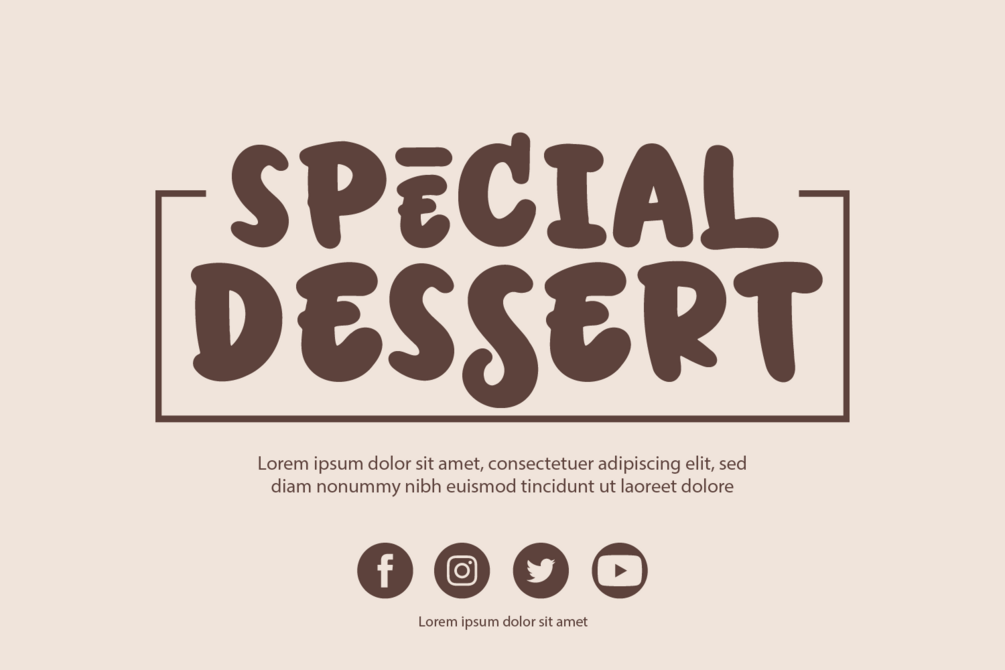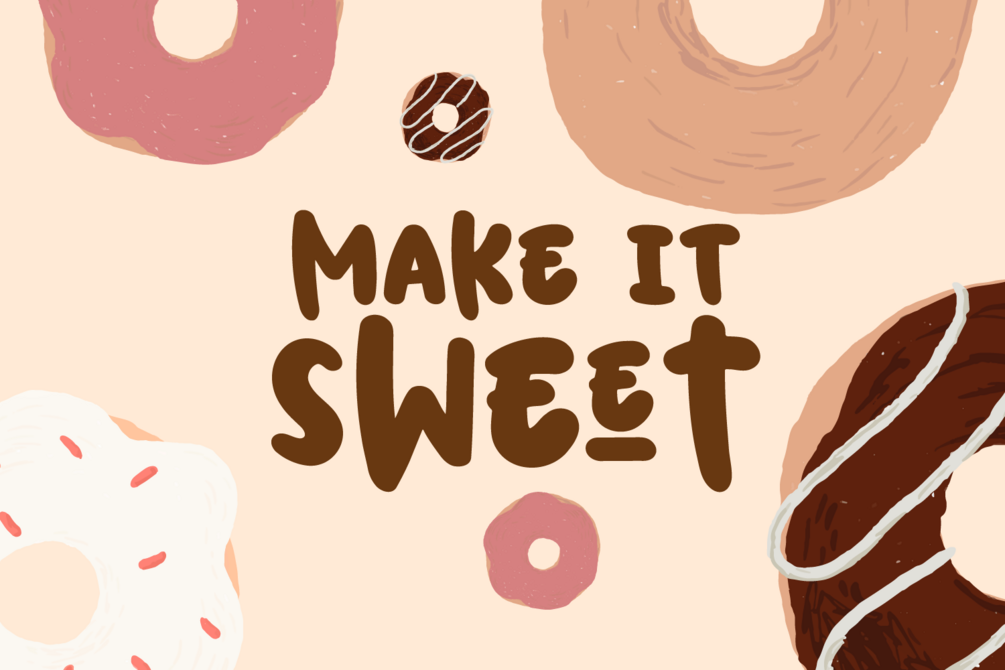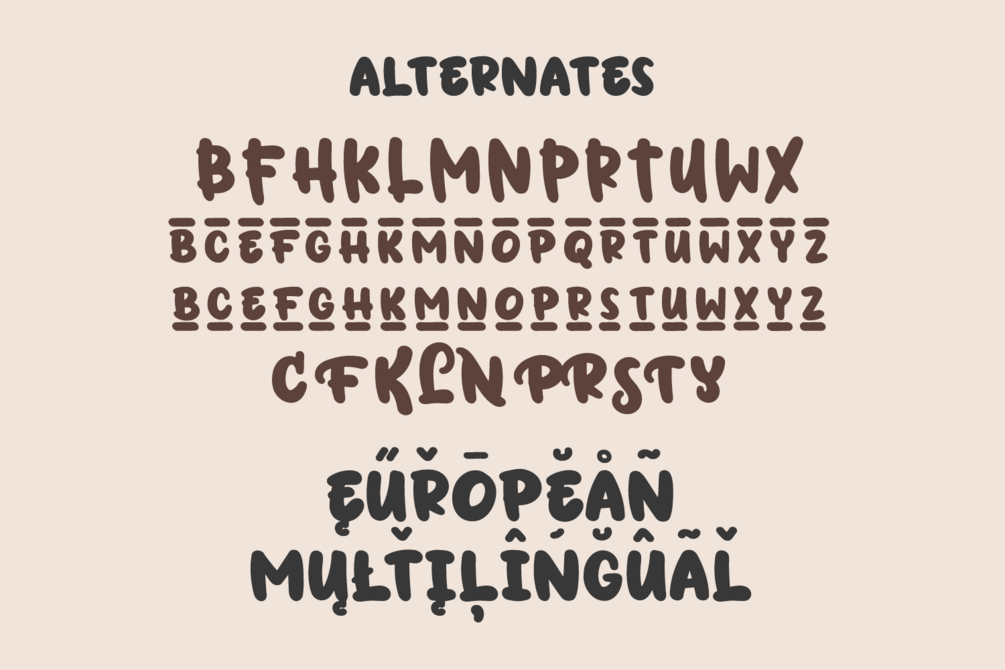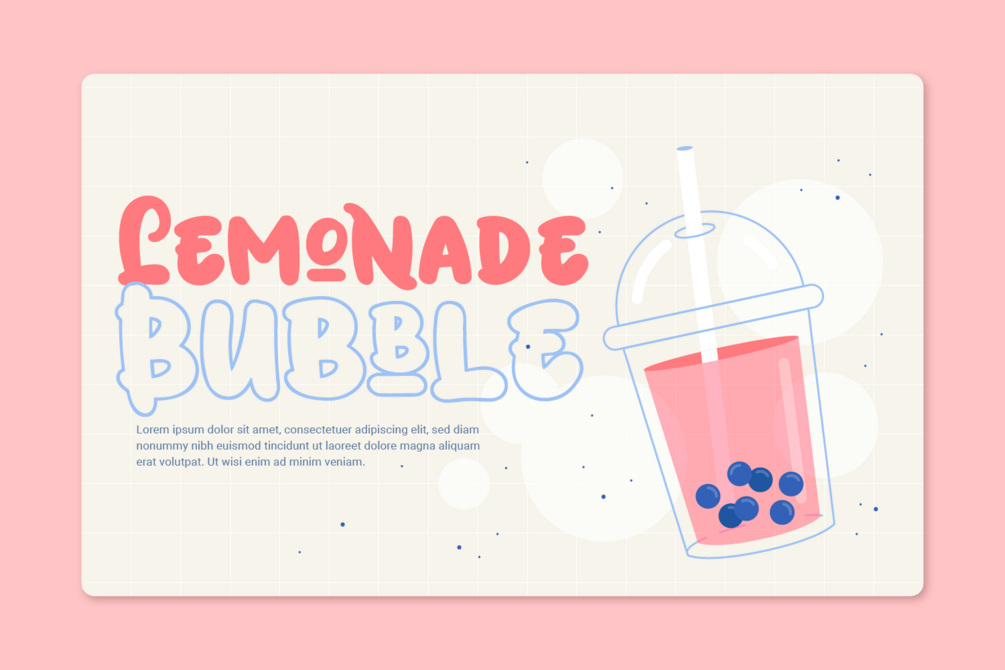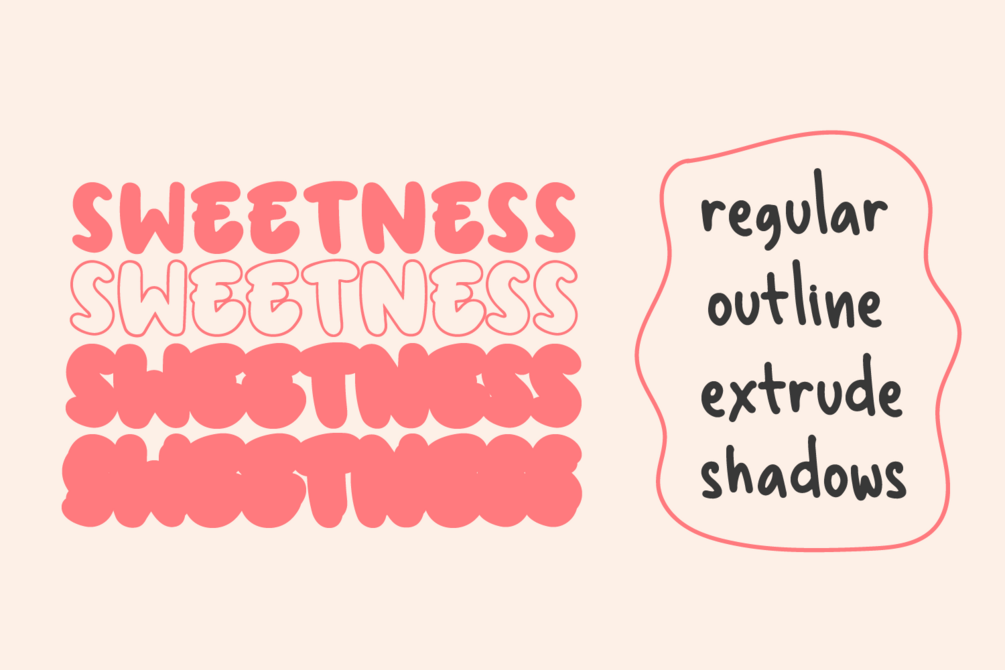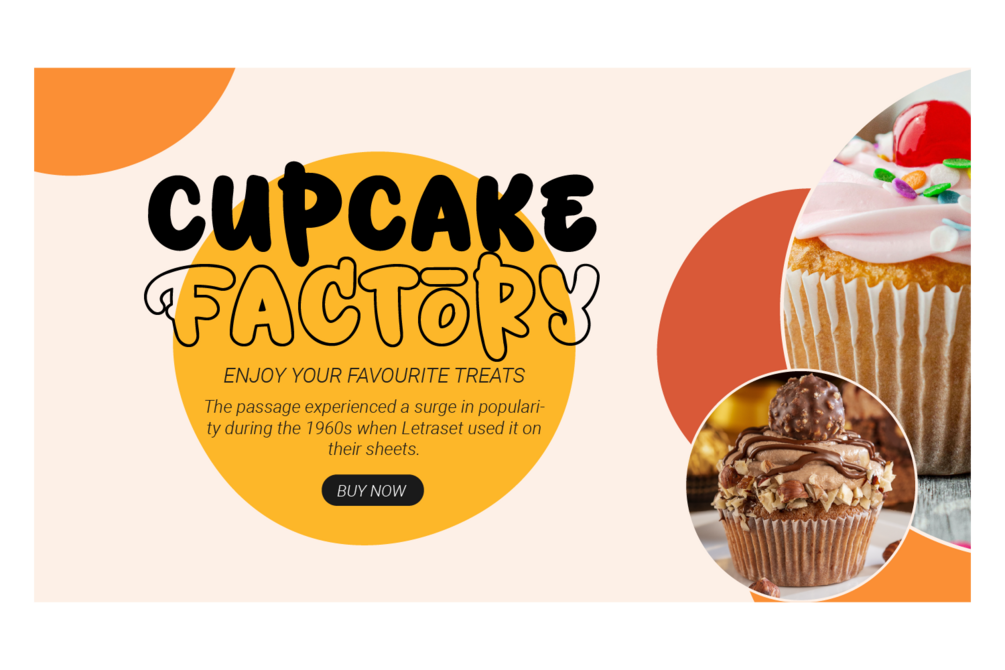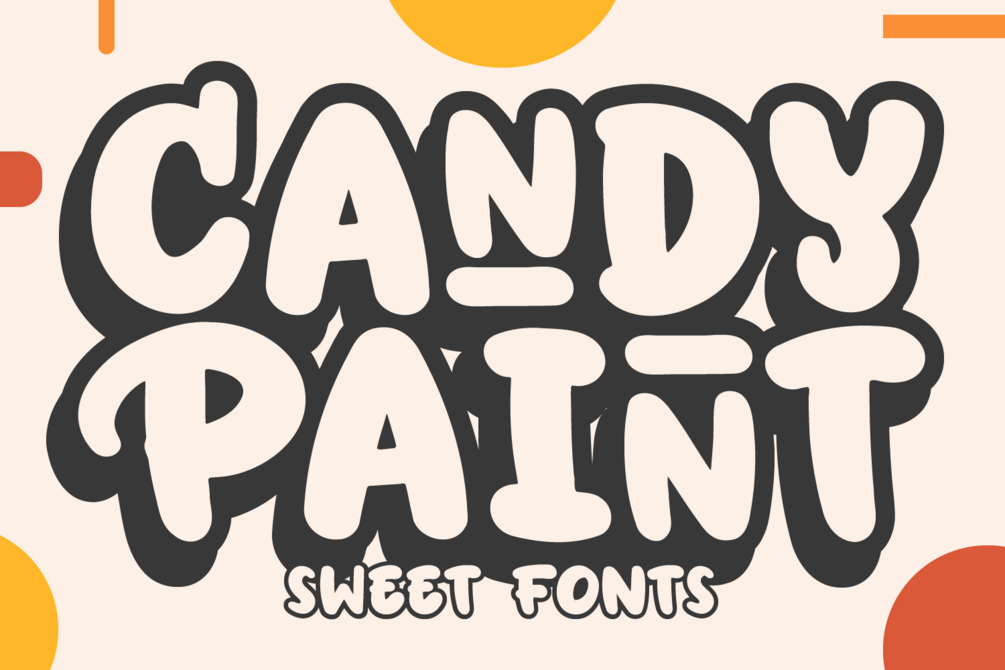
Candy Paint - Sweet Fonts
introducing for new fonts, Candy Paint.
Candy Paint is a bubble fonts.
good quality, easy access alternates, good readibility.
comes with 4 style.
Regular, Outline, Extrude, Shadows.
• Uppercase
• Lowercase
• Numerals
• Symbols
• European Multilingual
• Stylistic Set 1
• Stylistic Set 2
• Stylistic Set 3
• Stylistic Set 4